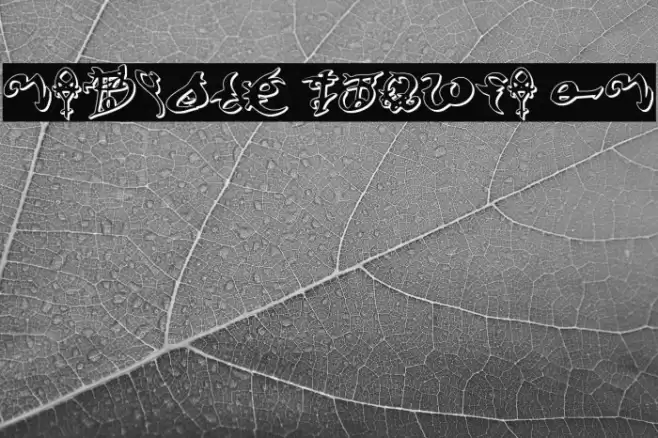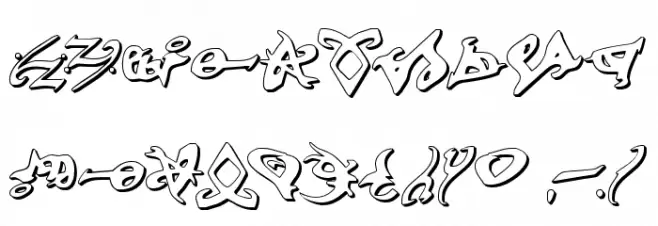
Devil's Tongue 3D Font
Devil's Tongue 3D Description
This font features an intricate and ornate design, characterized by its highly decorative and complex letterforms. Each character is embellished with unique flourishes and embellishments, giving it a mystical and otherworldly appearance. The font's style is reminiscent of ancient scripts or magical runes, with a bold and striking presence. The characters are interconnected with swirling lines and sharp angles, creating a sense of movement and energy. This font is not designed for readability in large blocks of text but rather for artistic and decorative purposes, where its elaborate style can be appreciated.
An ornate and mystical font with intricate, decorative letterforms from Uncategorized fonts.
- Proposed Projects: Ideal for fantasy-themed projects, book covers, game titles, and decorative posters.
- Character Spacing: Tight
- Use Case: Logos, Headlines, Decorative elements